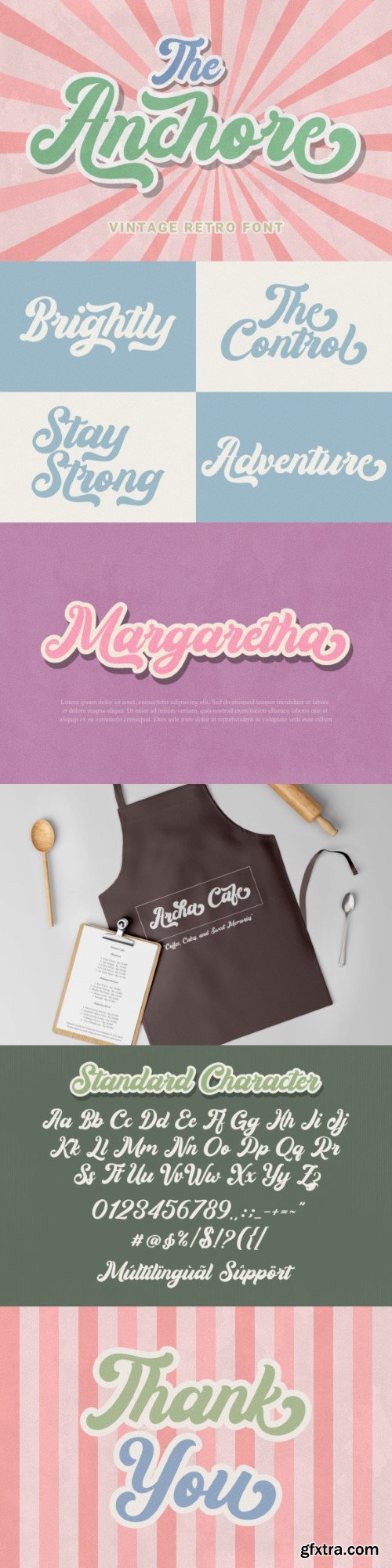
安可尔字体
Embrace the nostalgic allure of our retro-inspired script font, exuding a groovy charm that transports you back in time. With its elegant, flowing lines and vintage aesthetic, this font captures the essence of a bygone era, making it perfect for adding a touch of retro flair to your creative projects. Let this font take you on a journey through the stylish and vibrant vibes of yesteryears, adding a timeless appeal to your designs. Add it to your logos, labels, branding, invitations, websites, quotes, and more, and it will boost your designs and make them a true standout!